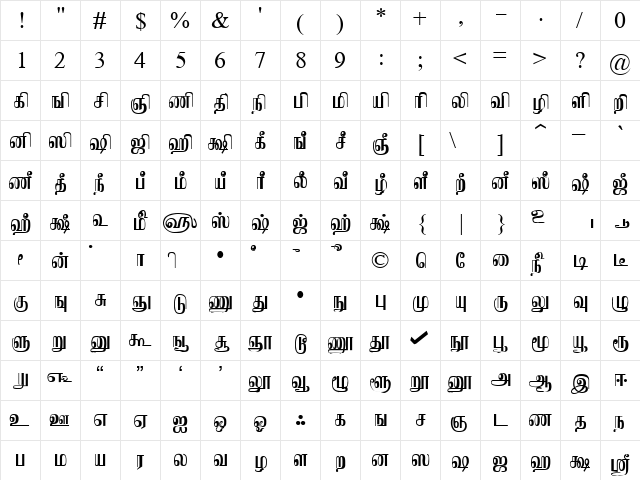
TAMKadambri Regular
Design Context for TAMKadambri Typeface
TAMKadambri offers clean, dependable letterforms without strong stylistic allegiance, making it a practical choice for designers who need flexibility.